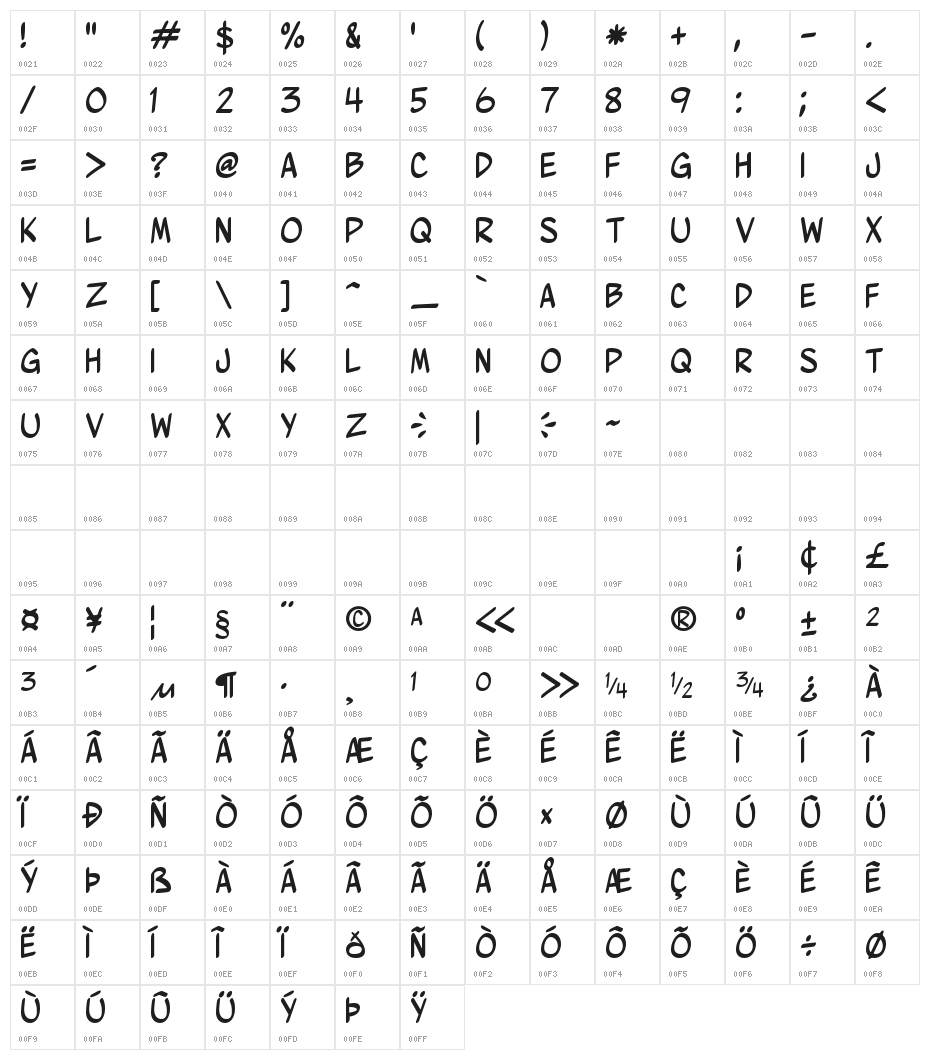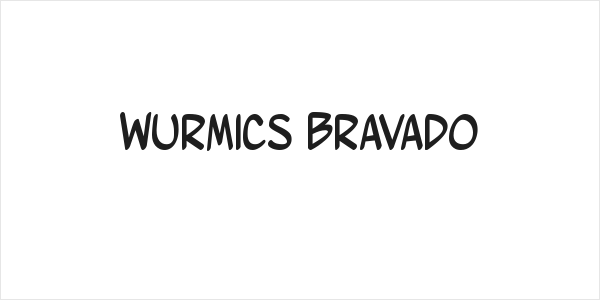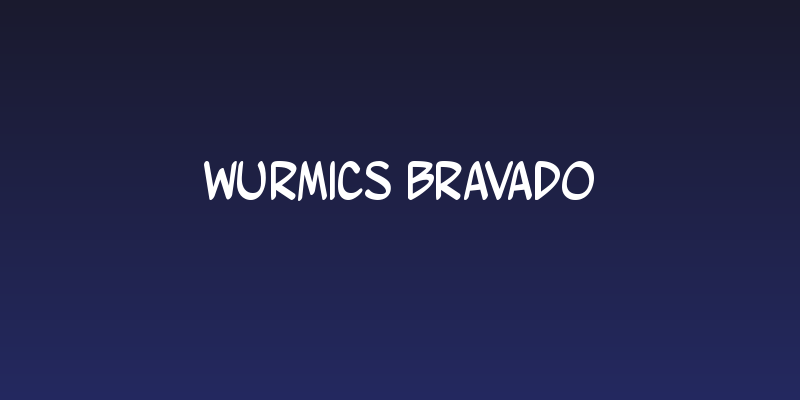
Wurmics Bravado Font
Wurmics Bravado Description
This font features a playful and bold handwritten style, characterized by its thick, rounded strokes and slightly irregular letterforms. The uppercase and lowercase letters maintain a consistent flow, giving it a casual and approachable appearance. The numerals and special characters are designed to match the overall style, ensuring a cohesive look across all text. Its informal nature makes it suitable for projects that require a friendly and engaging tone.
| Proposed Projects | Ideal for children's books, comic strips, casual branding, and playful event invitations. |